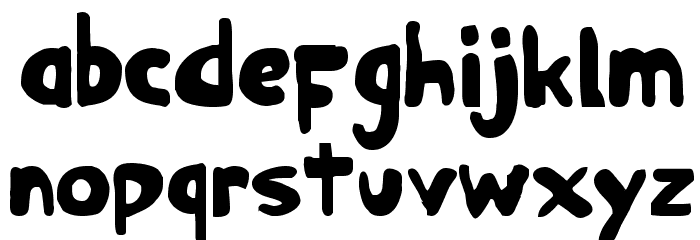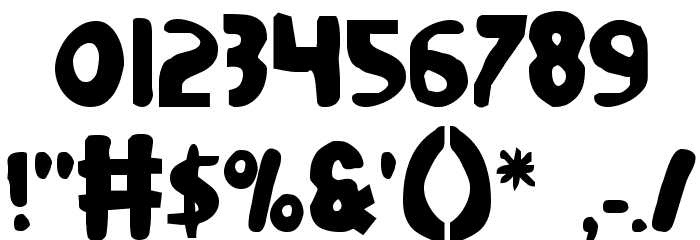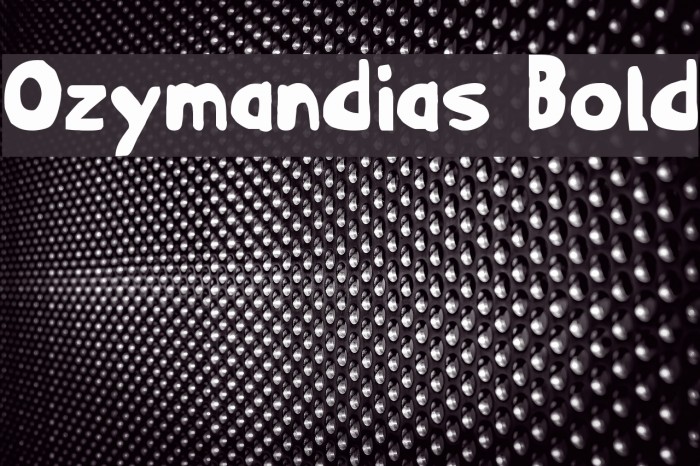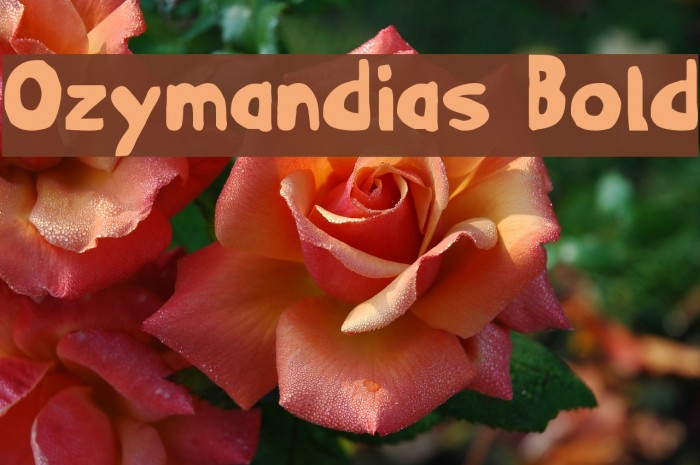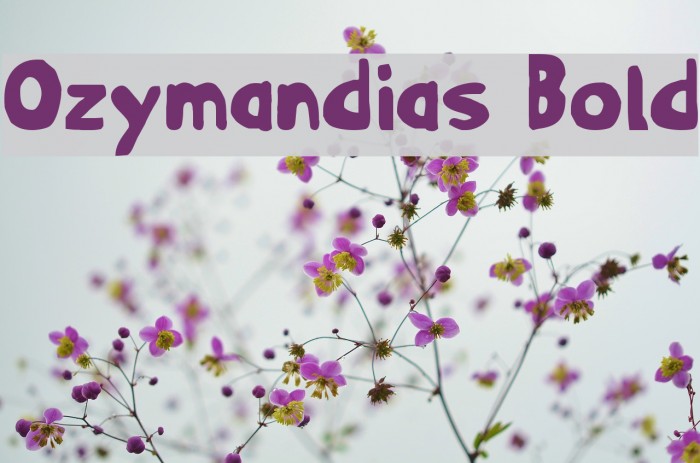
Ozymandias Bold Font
This font features bold, rounded characters with a playful and slightly irregular style. The letters have a hand-drawn appearance, giving them a unique and artistic flair. The strokes are thick and consistent, creating a strong visual impact. The font maintains a casual and approachable feel, making it suitable for creative and informal projects. The numbers and special characters follow the same design principles, ensuring uniformity across all elements.
A bold, playful font with rounded, hand-drawn characters.
- Proposed Projects: Ideal for children's books, playful branding, posters, and creative invitations.
- Overall Style: Playful, Artistic